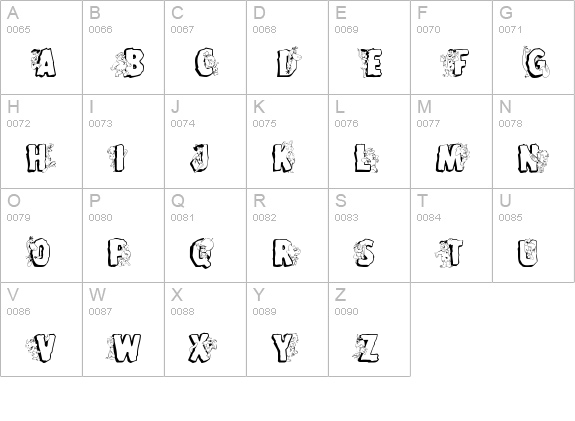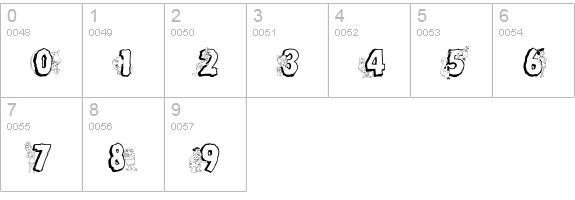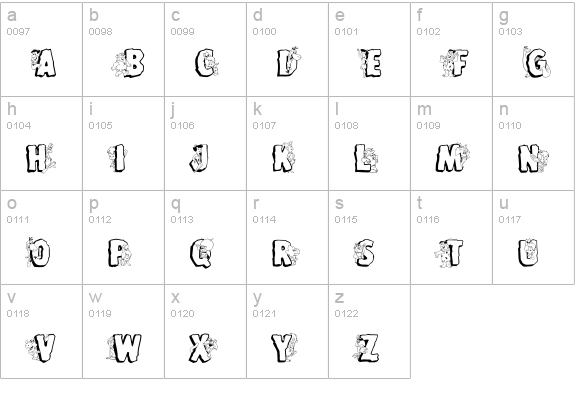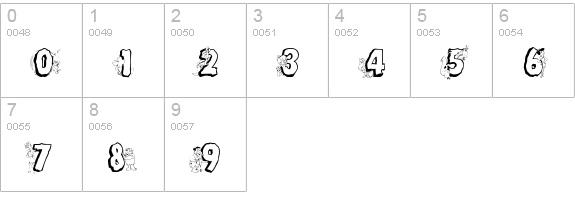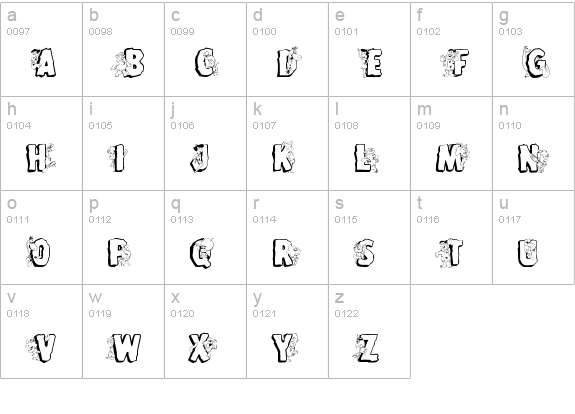
Flintstones BT Font Details
Flintstones BT font is a charming and playful typeface inspired by the iconic animated TV series, The Flintstones. With its prehistoric vibe and quirky style, this font captures the essence of the beloved Stone Age family. The Flintstones BT font is perfect for adding a fun and nostalgic touch to your designs, whether for posters, invitations, or branding projects. Best of all, the Flintstones BT font is available for free download at FontsMarket.com. So, go ahead and bring some Bedrock flair to your projects with this delightful font that will make you shout, "Yabba Dabba Doo!"